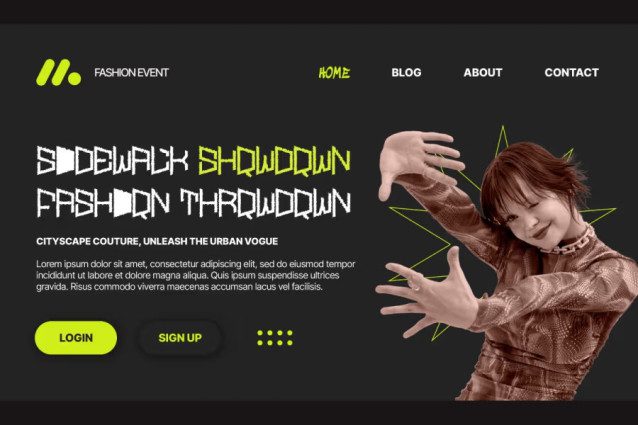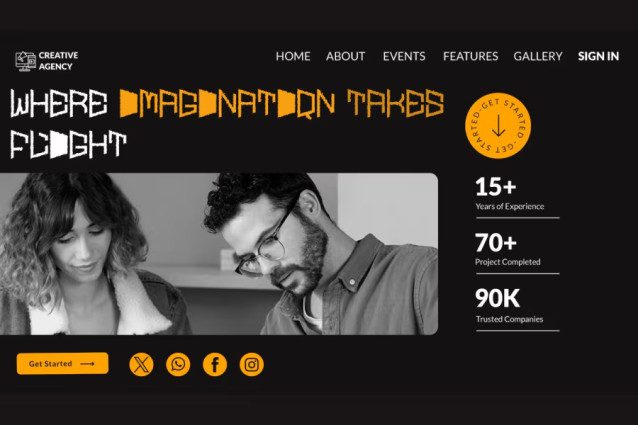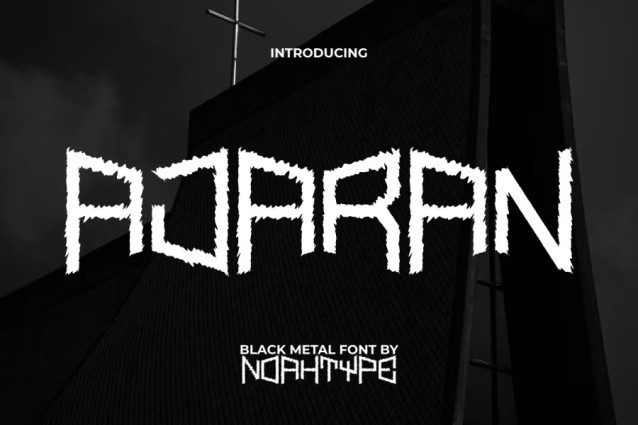
Ajaran Font
Ajaran Font is a rough hardrock mysterious decorative Black Metal font by NoahType. The uniqueness of this font lies in the right side of the letters which are indented, creating an attractive characteristic. It will be awesome for any designs, such as custom design, brand image, poster, label, invitation, cover, marketing material, menu, printing, product packaging, quotes, signage, website, and many more!
Ajaran Font includes full set of ALL CAPS for Uppercase and Lowercase Basic Characters, Numerals, Punctuation, and Symbol. This playful font will make your design cool and also a perfect choice for many industries, such as game, movie, comic, music, accessories, advertising, art, café, event or festival, fashion, printing, publishing, etc.